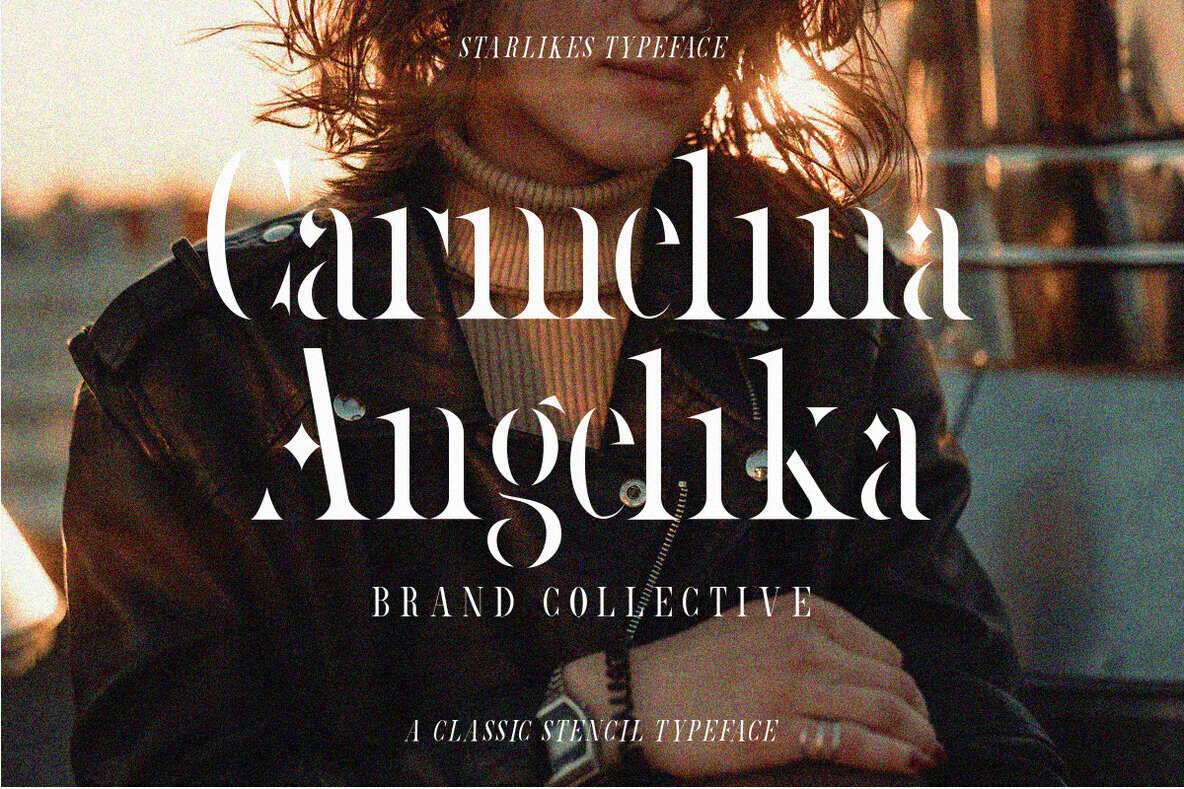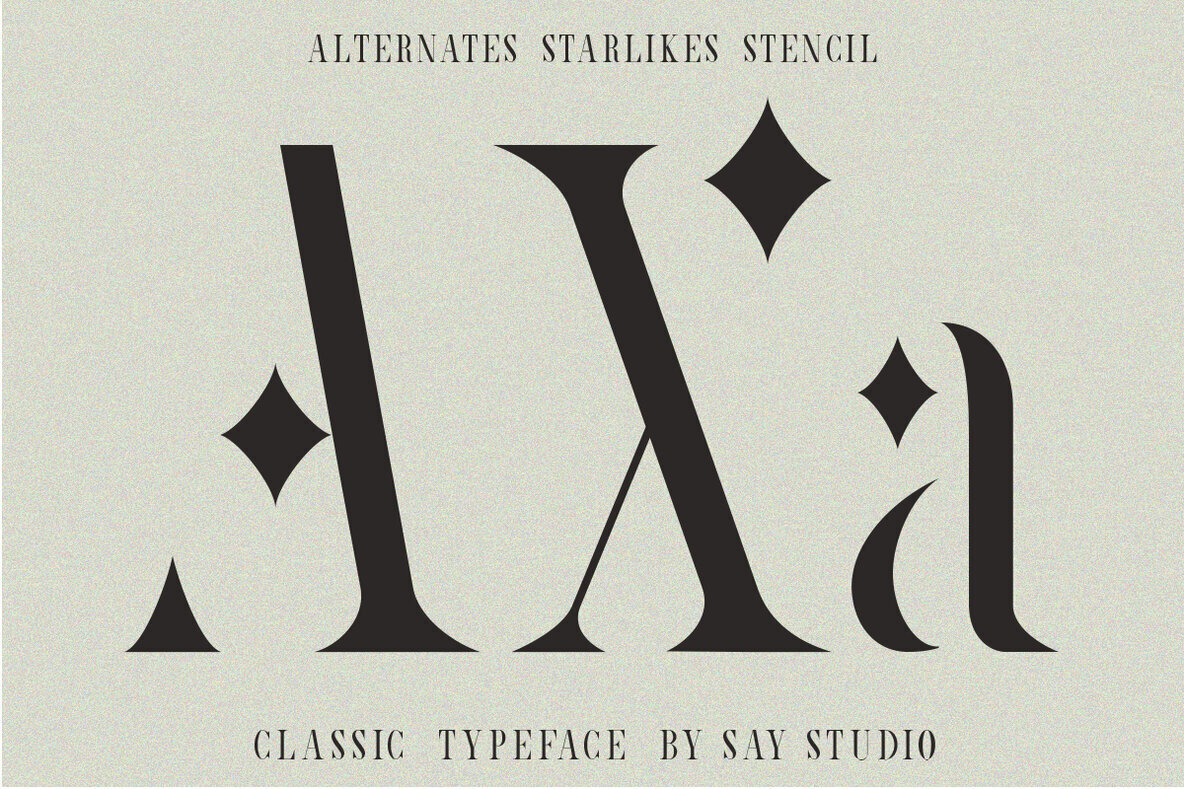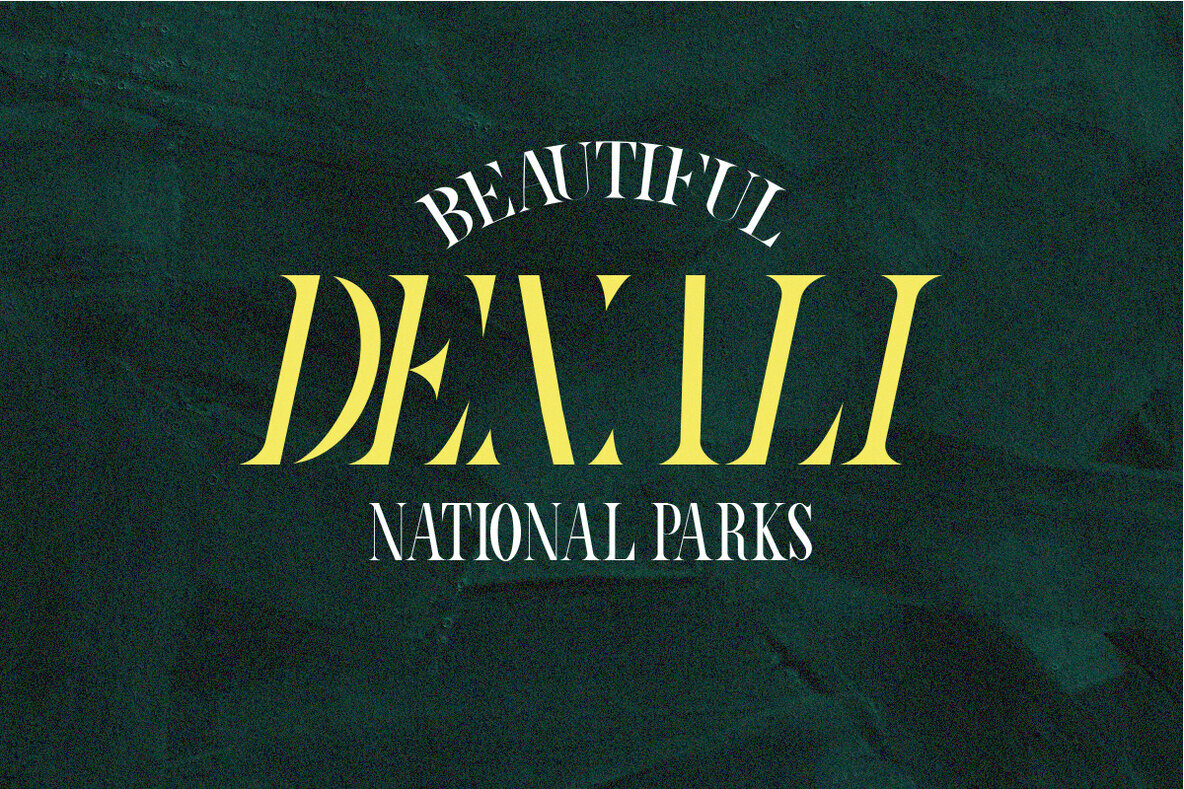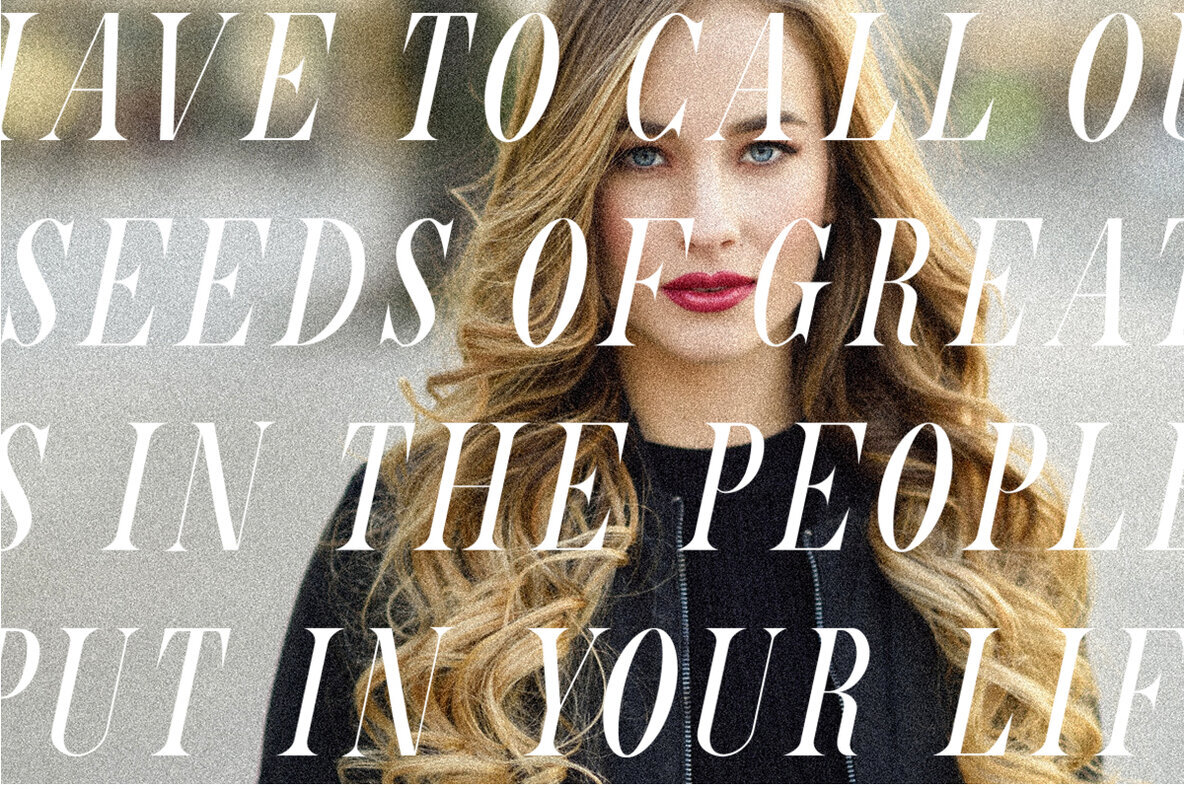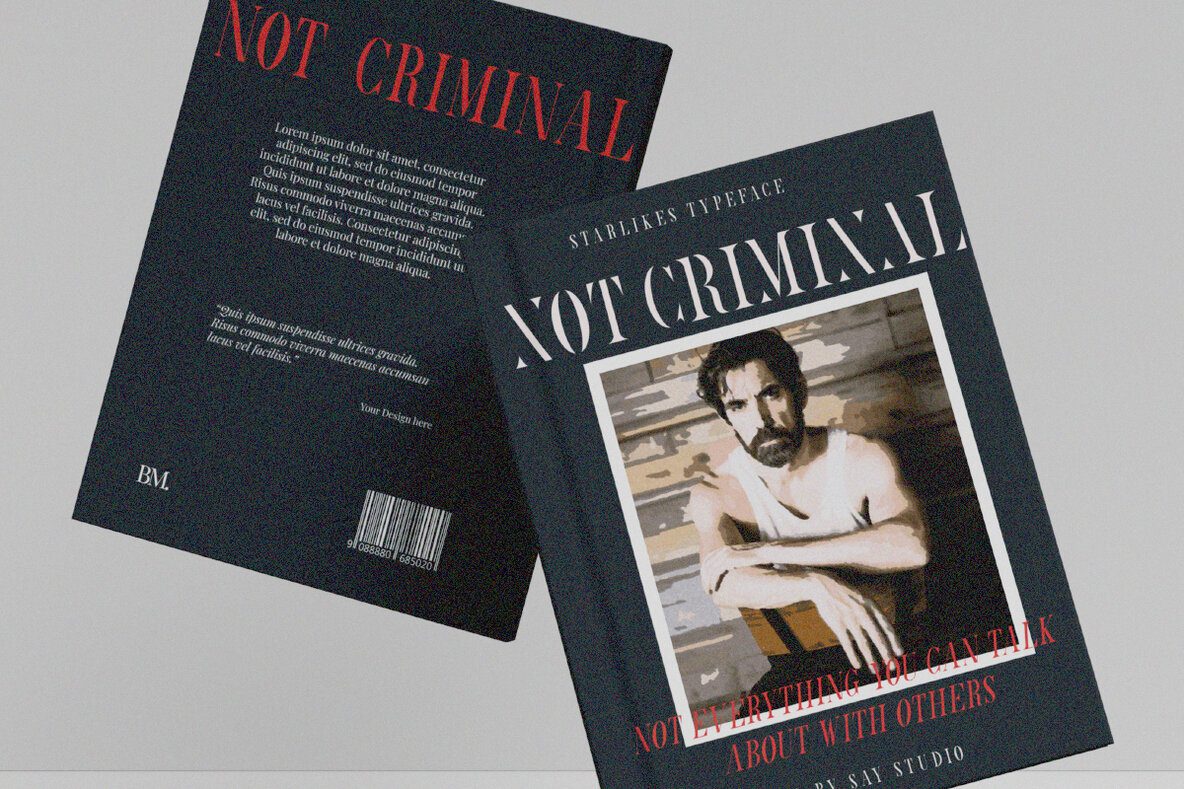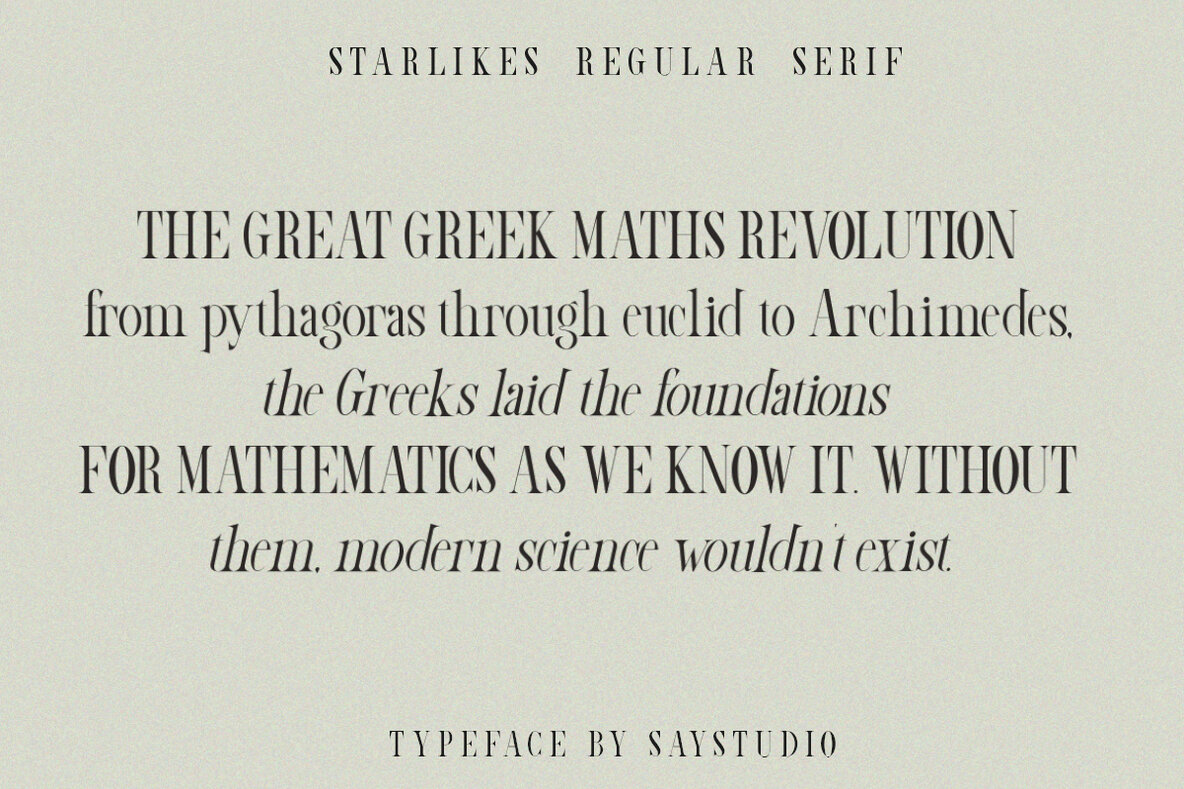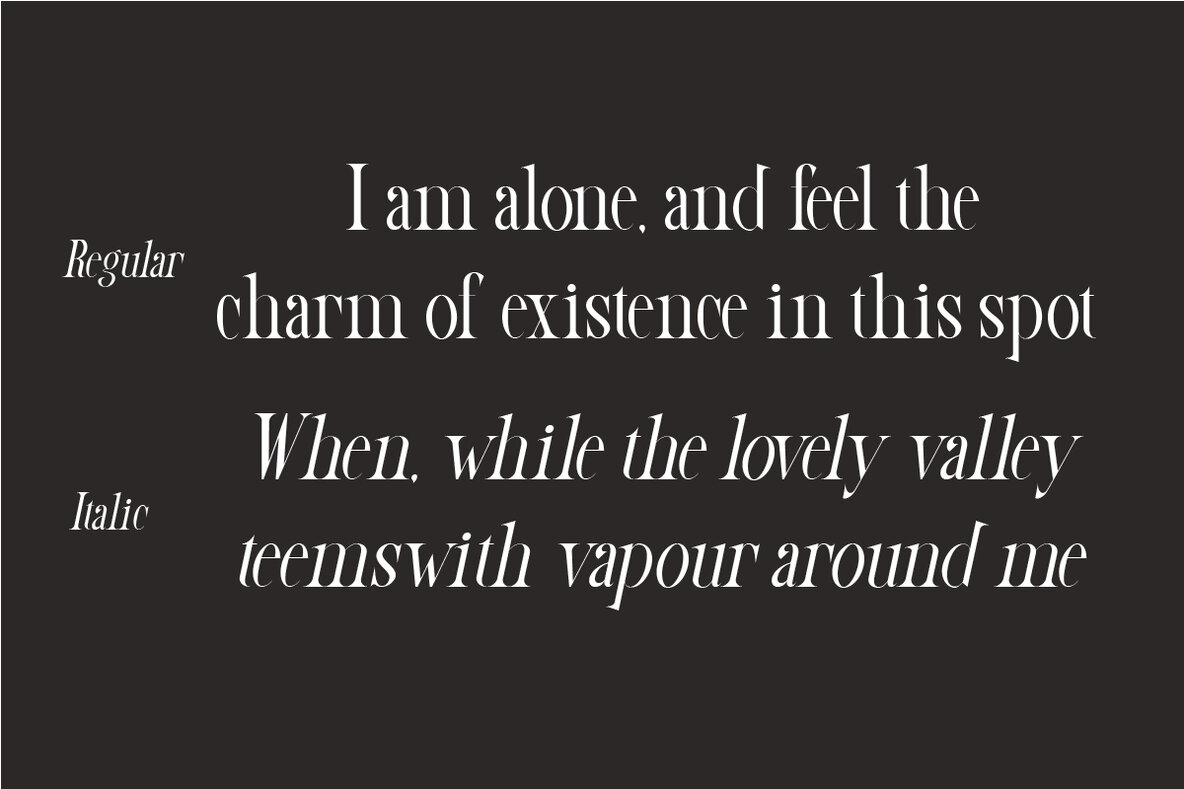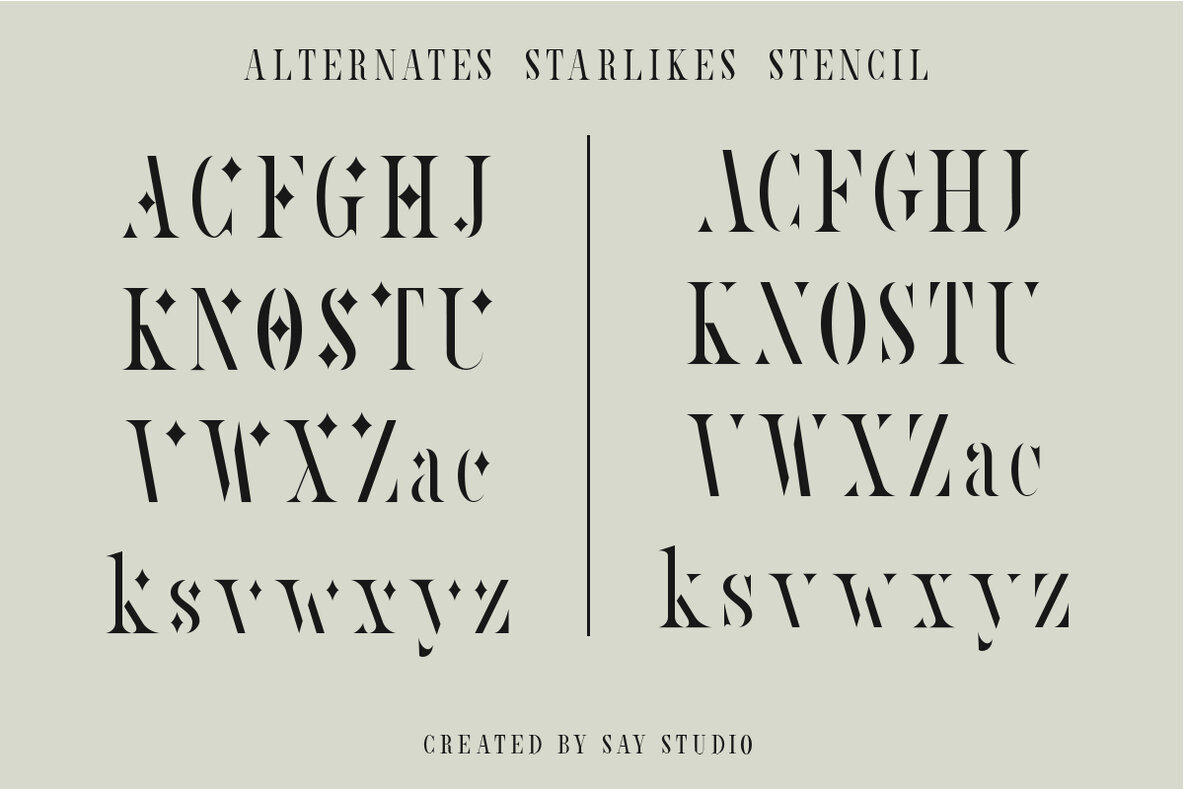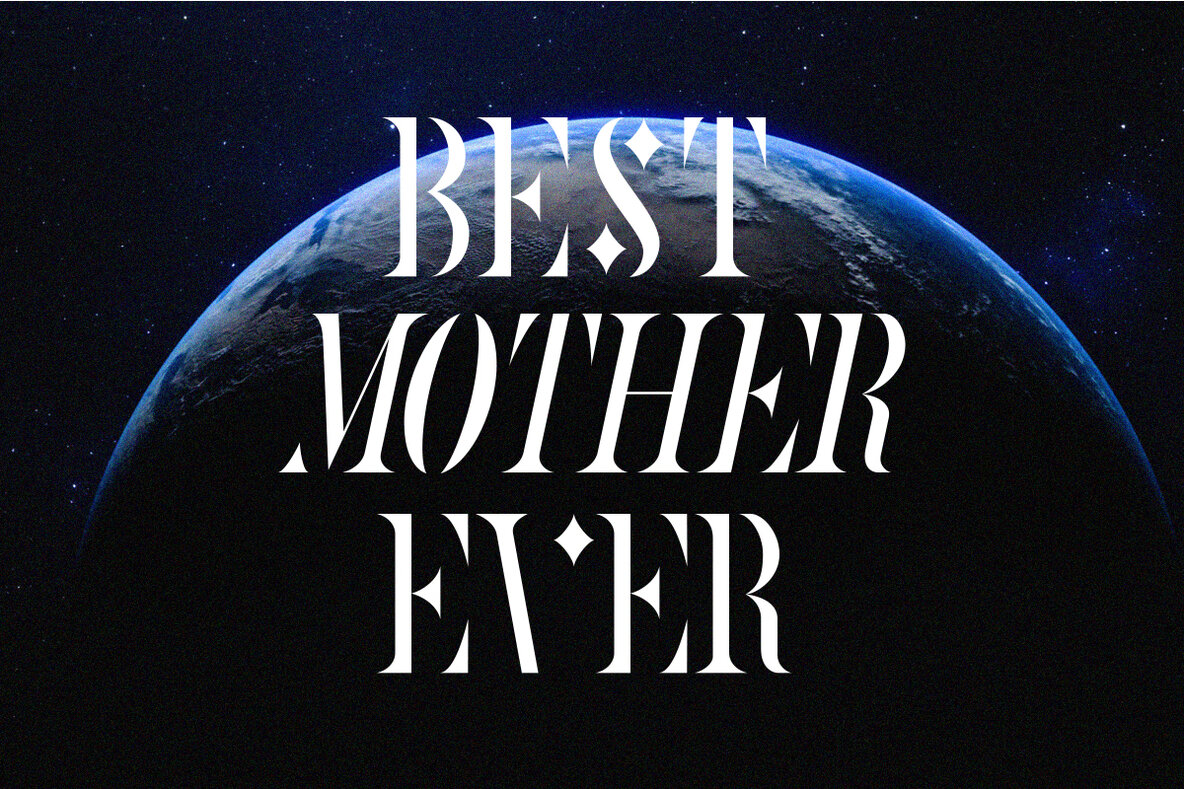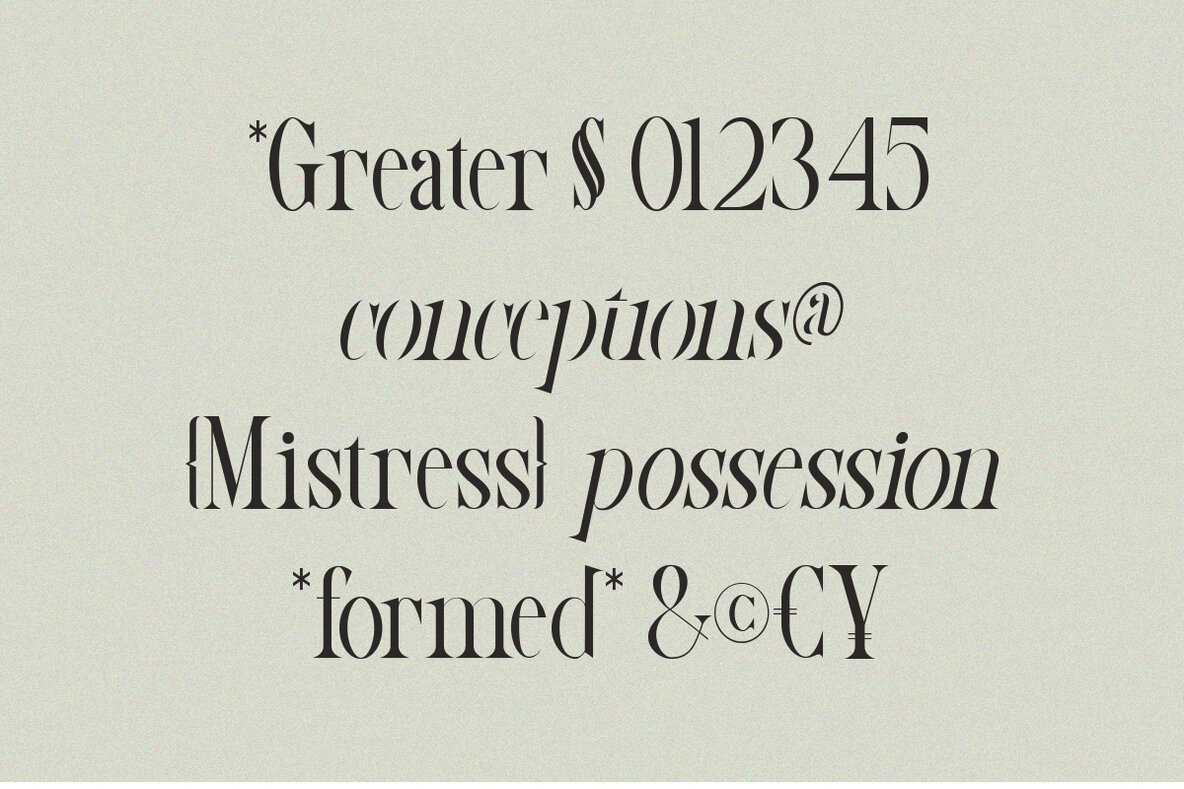
Starlikes Font
Introducing Starlikes, a classic typeface design that's been given a completely new lease on life. With its unique stencil serif style and regular option, Starlikes is perfect for any project you have in mind, whether it's a logo, header, or call to action.
Upper and lower case glyph coverage give this typeface the required versatility for marketing projects, but our favorite thing about it is the crumpled uppercase letters. They give Starlikes an added touch of personality that makes it stand out from the crowd.